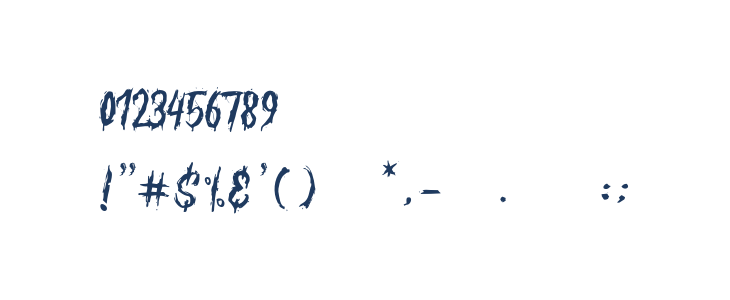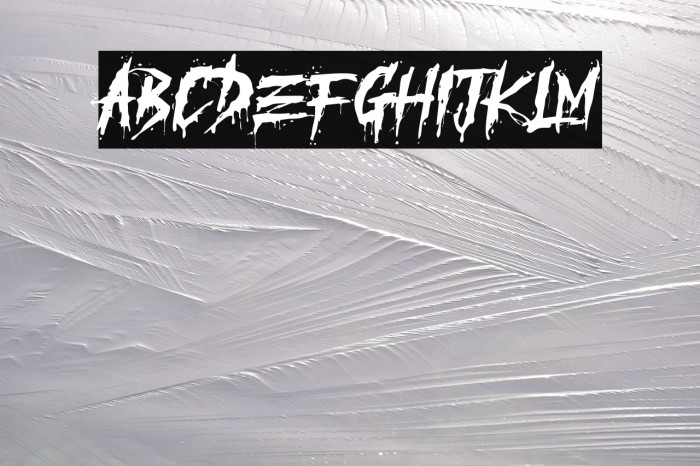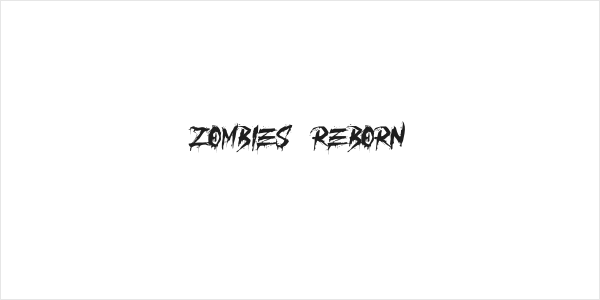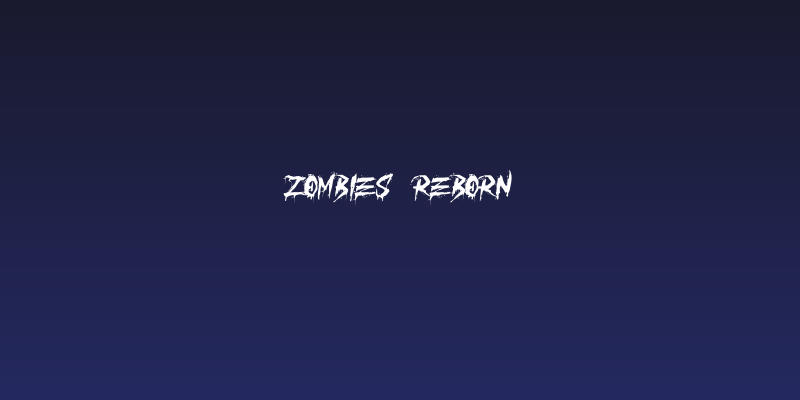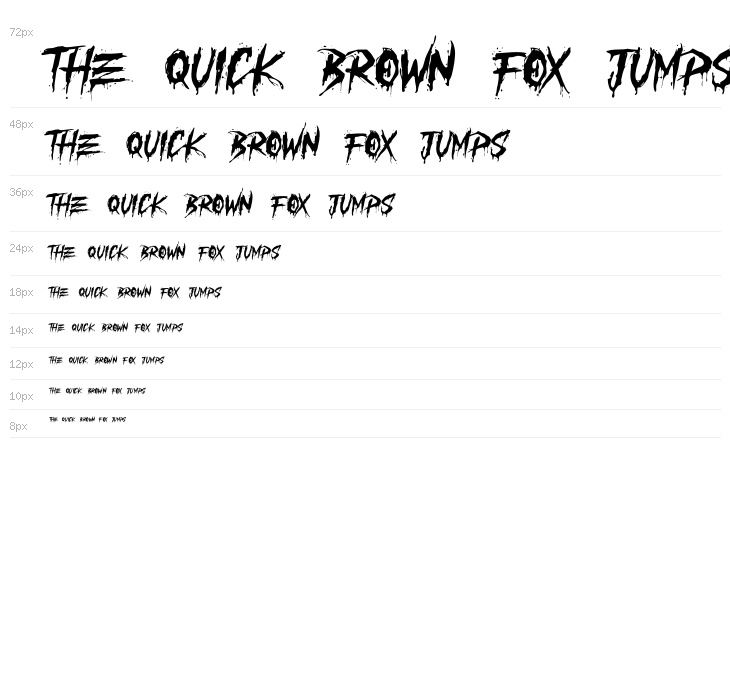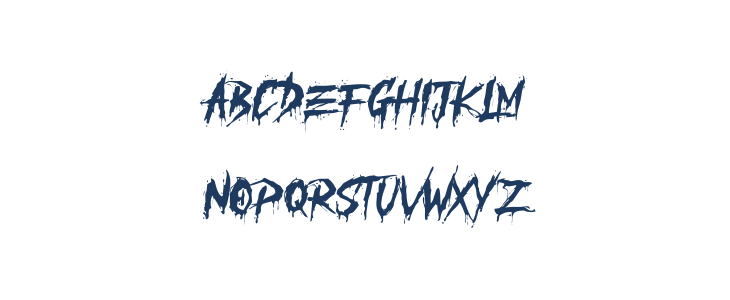
ZOMBIES REBORN Font
ZOMBIES REBORN Description
This font features a bold, distressed style with a grungy, horror-themed aesthetic. The characters appear as if they are dripping or splattered, creating a chaotic and edgy look. The uppercase and lowercase letters maintain a consistent design, with jagged edges and uneven strokes that enhance the eerie feel. Numbers and special characters follow the same theme, making the font suitable for projects requiring a dramatic and intense visual impact. The overall appearance is striking and memorable, perfect for capturing attention.
| Proposed Projects | Ideal for horror movie posters, Halloween event flyers, video game titles, and any project needing a spooky, dramatic touch. |